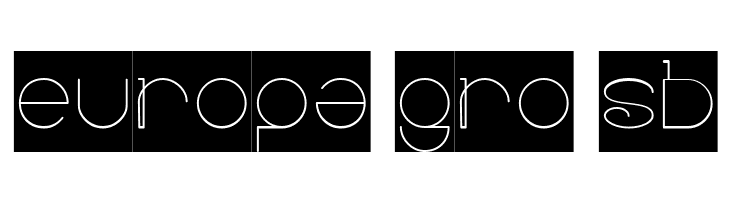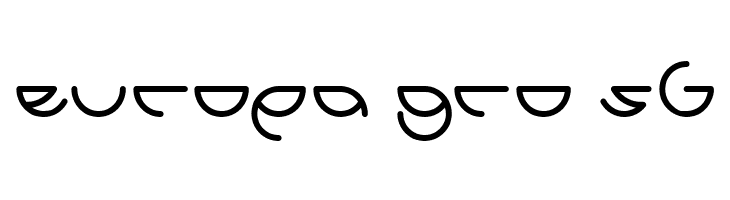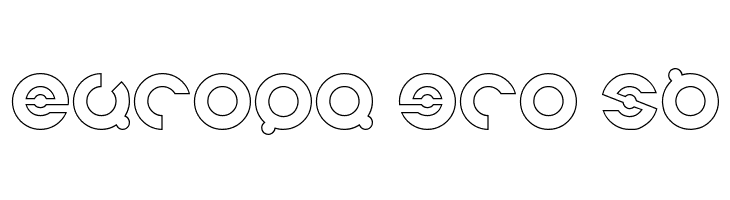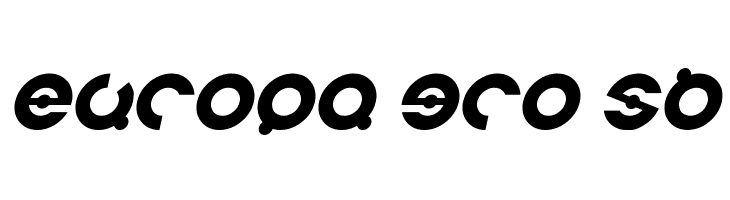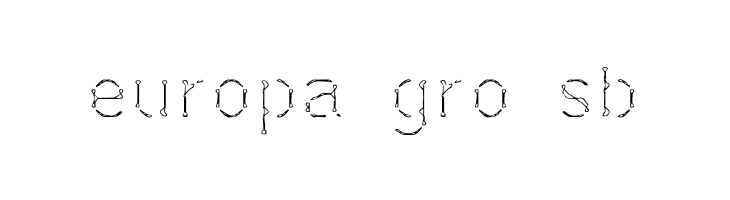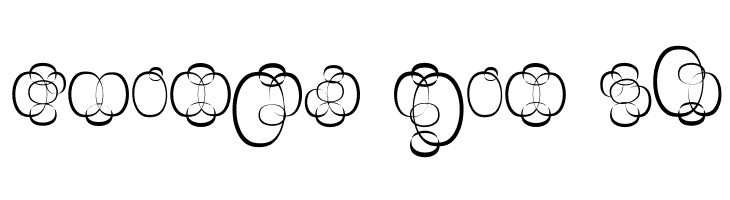
( koeiekat - koeiekat.com )
A bold, geometric font with sharp angles and circular forms.
A futuristic, geometric font with angular and circular elements.
A futuristic and geometric font with circular elements and consistent stroke width.
A bold, geometric font with circular motifs and abstract design elements.
A futuristic, geometric font with bold, circular elements and a modern aesthetic.
A futuristic, geometric hollow font with circular motifs and bold, structured characters.
A bold, geometric font with circular cut-out designs, ideal for modern projects.
( Andrew Lander - formerly at home.earthlink.net/~landerfam/fonts.html )
A futuristic, geometric font with a circuit-like design.
( Barbara Lukasik - strony.wp.pl/wp/barbarja/fonty.html )
A geometric, modern font with bold, structured forms and circular shapes.
( Daniel Plant - www.fontmonster.org )
An abstract, decorative font with overlapping circular shapes forming each character.